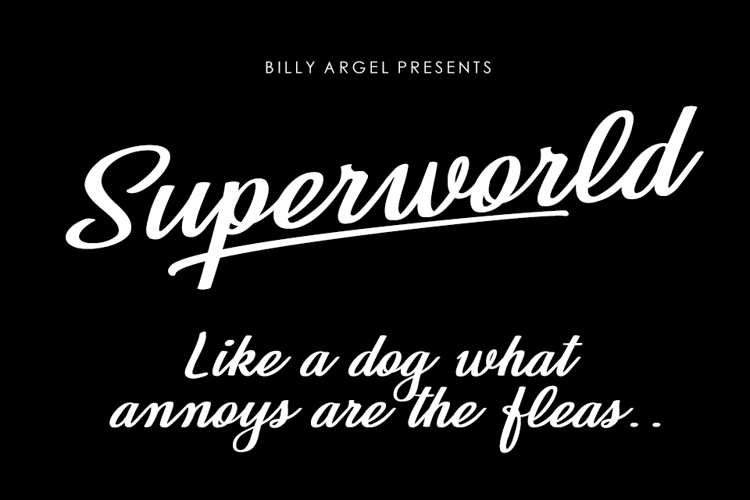
Superworld Font
About Superworld Font
This kind of reminds me of a baseball font. Almost like a vintage baseball font. Keep up the great work Billy Argel! You deserve much more fame and praise for your excellent and delivering fonts that always seem to amaze me!